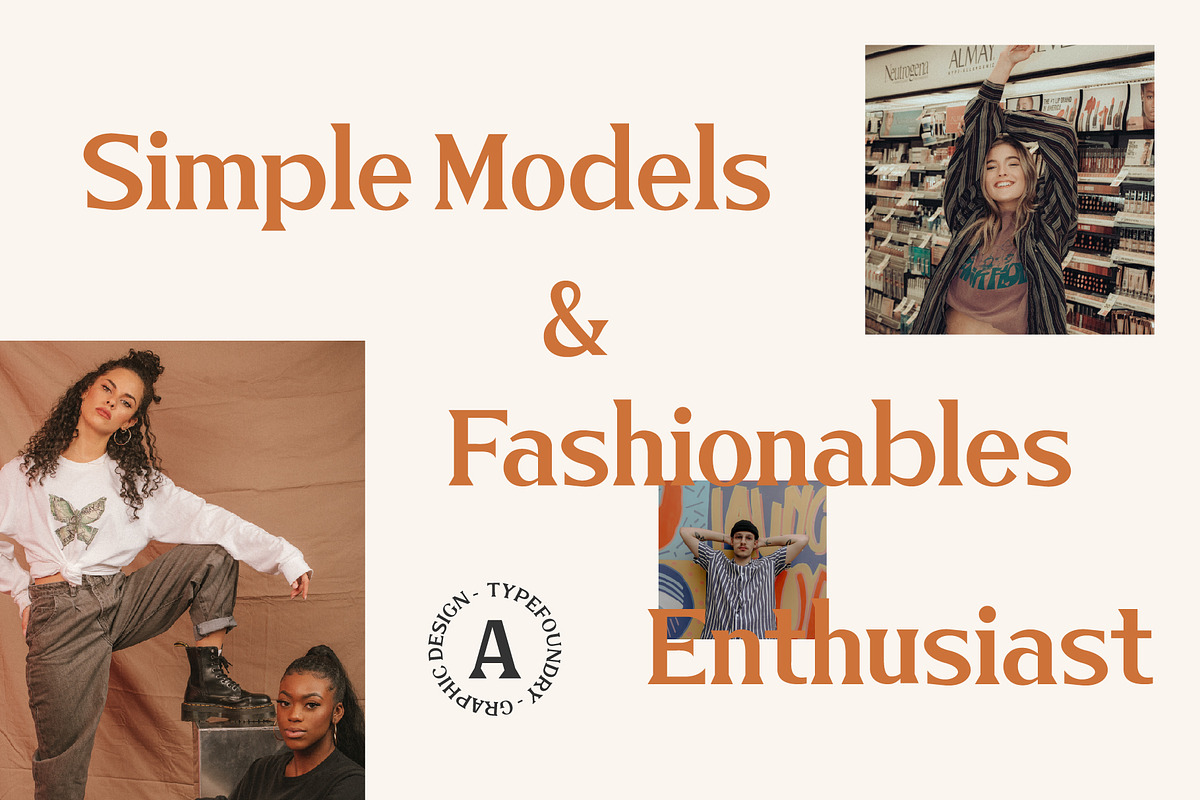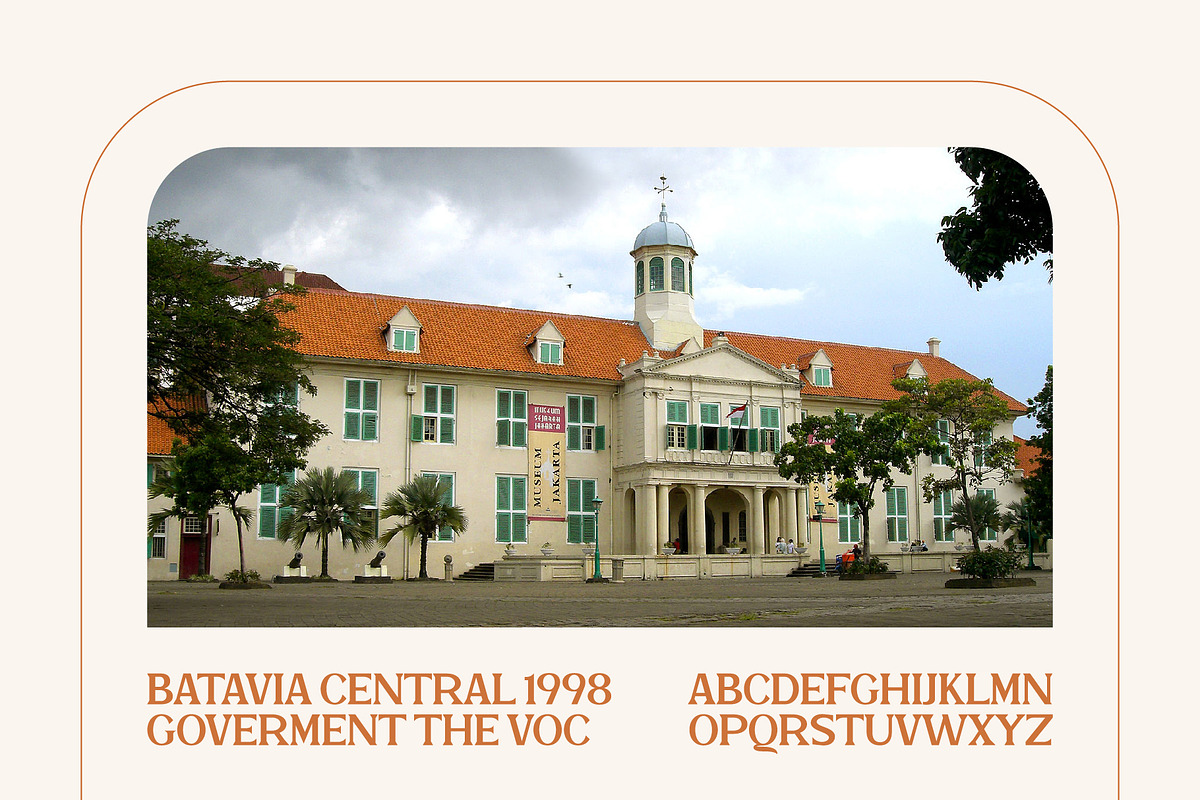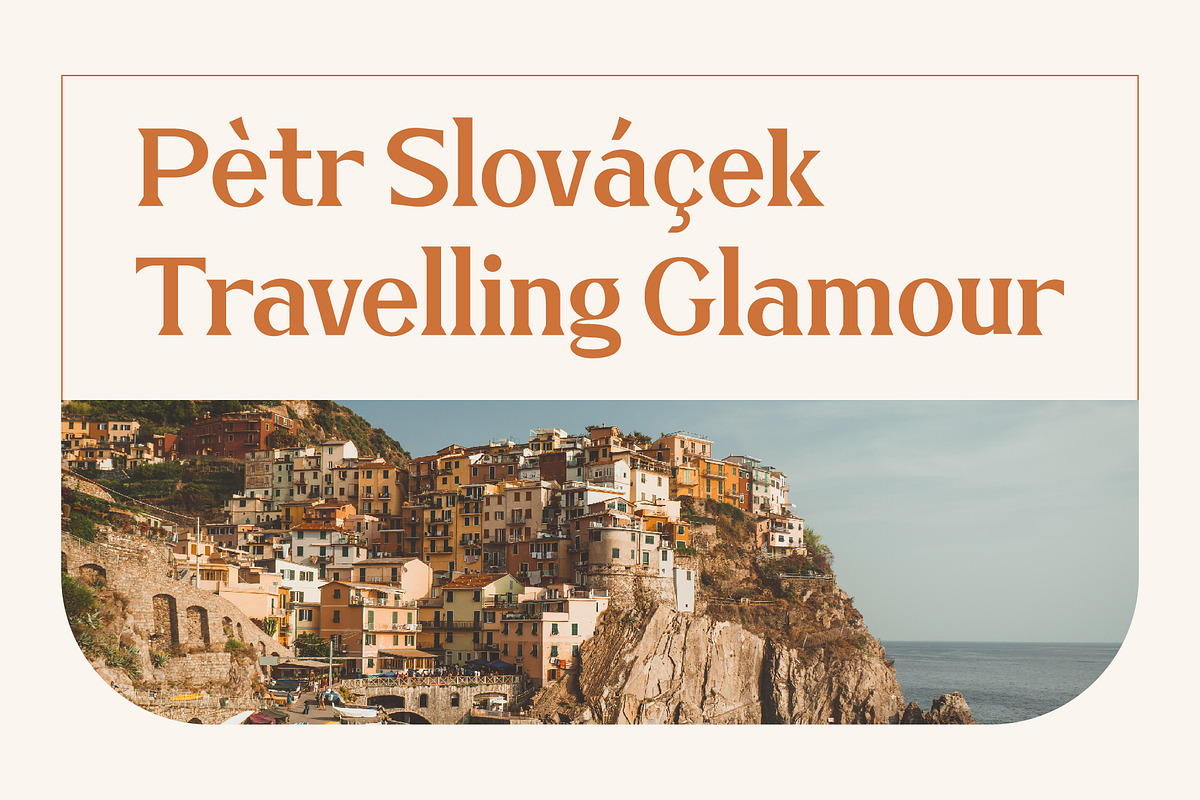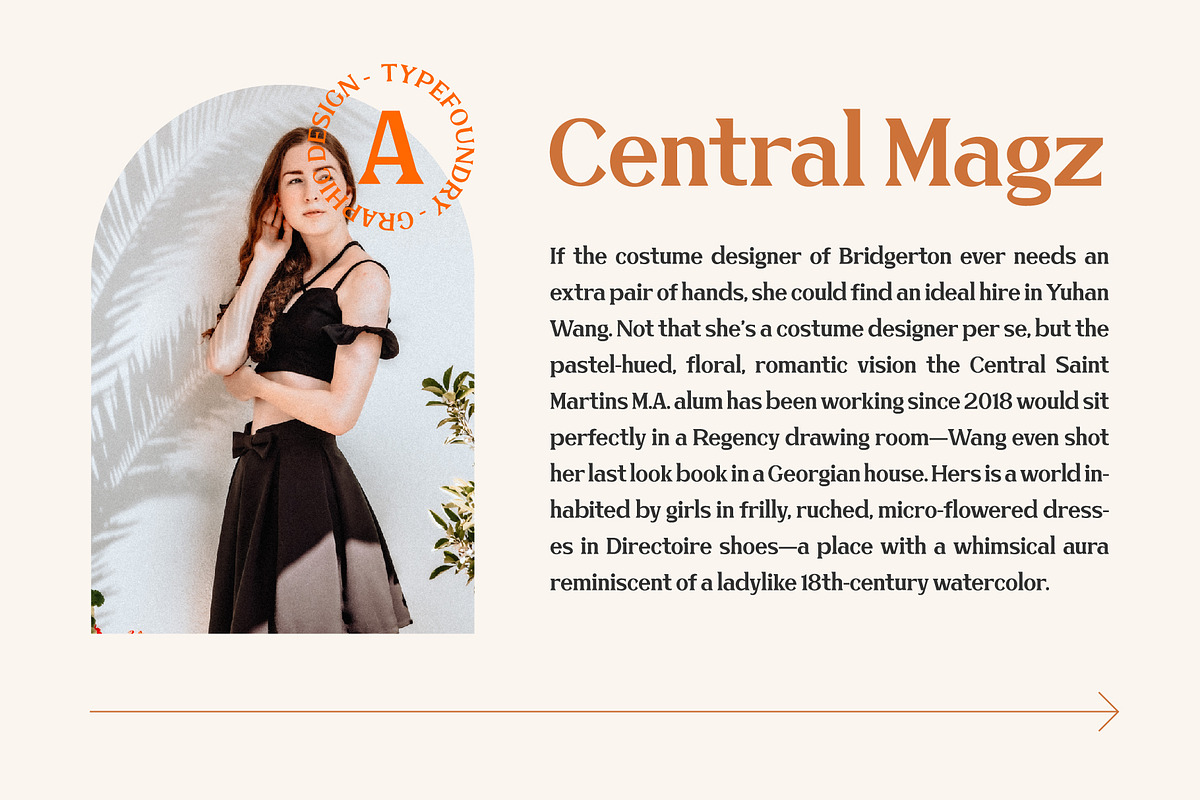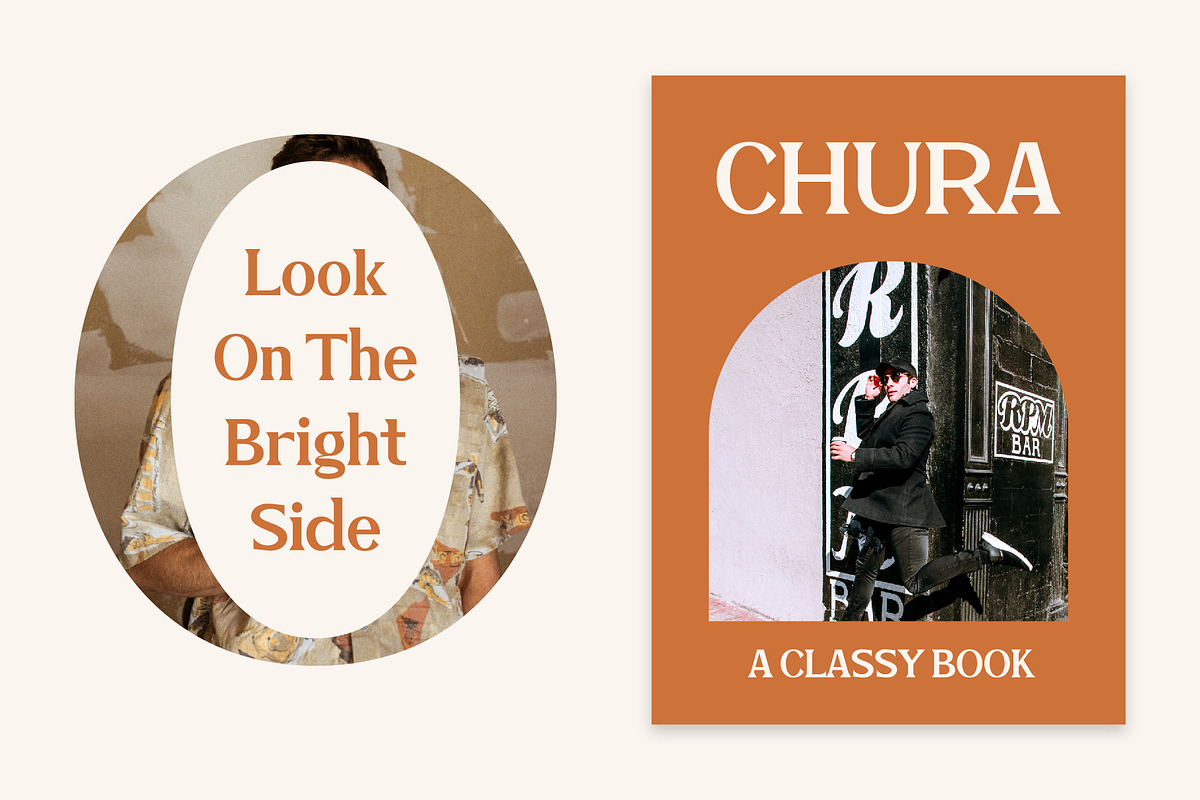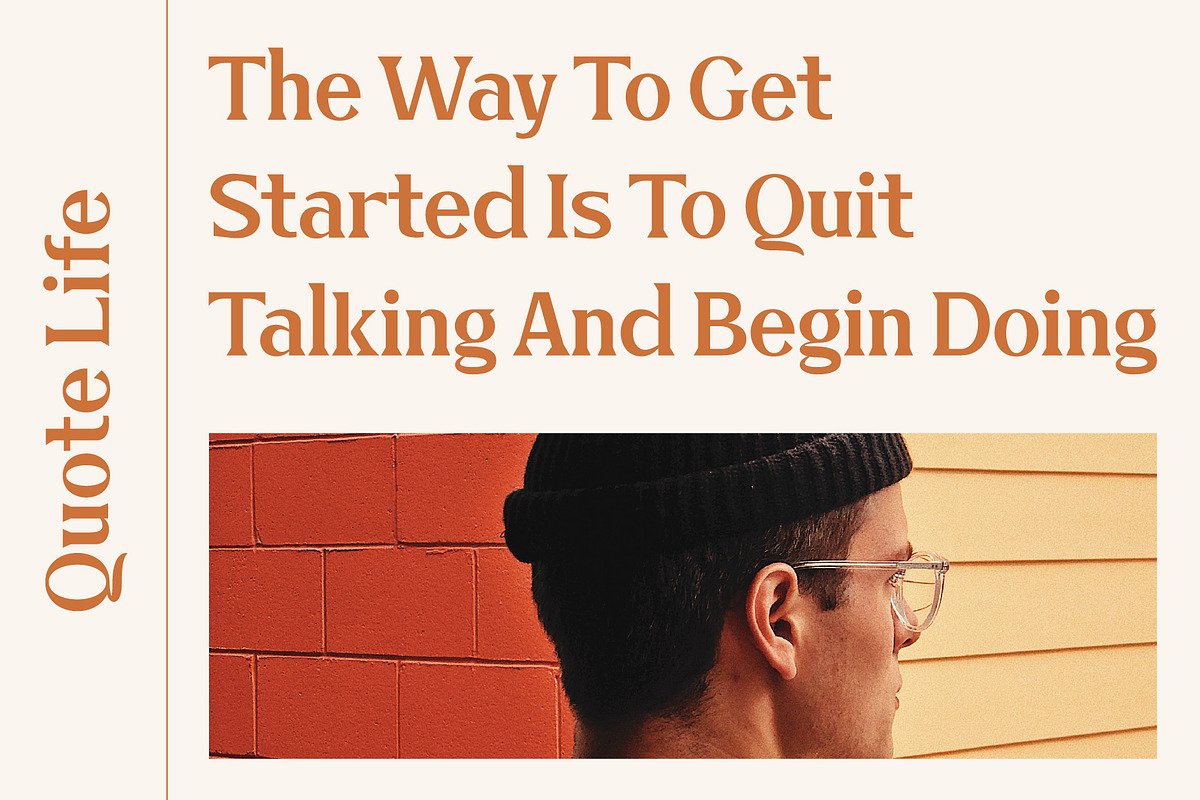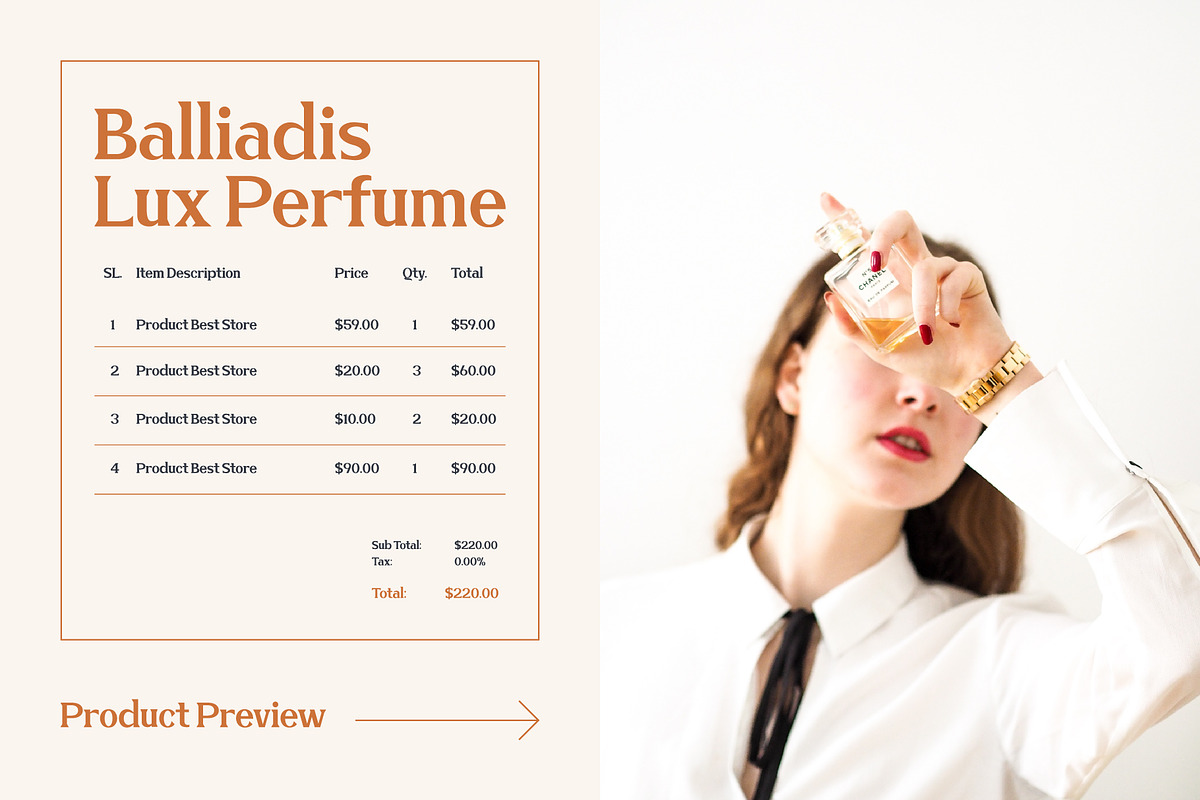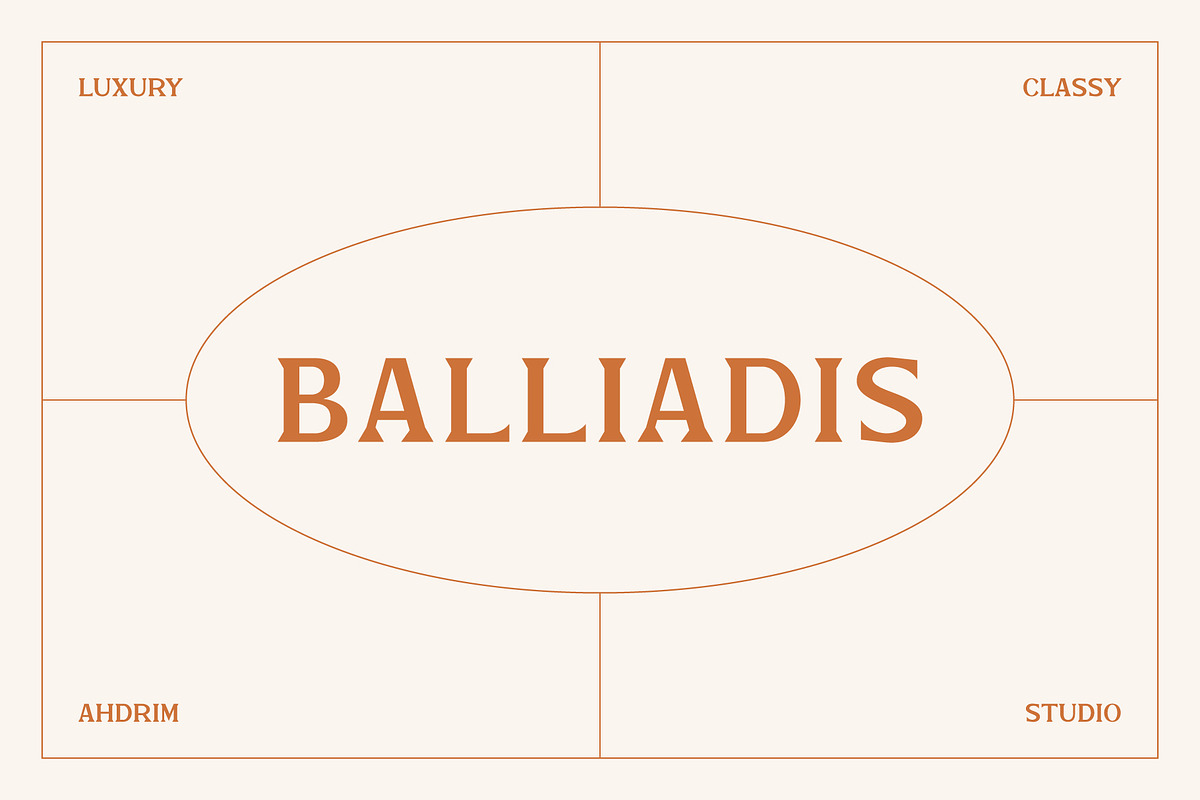
Balliadis Serif Font
Balliadis is a bold serif while elegance still maintained. It will boost your design stand out!
Balliadis is the perfect typeface for any kind of your project, such as advertisements, branding, graphic design, quotes, wedding design, logo for online or offline business, photography, and others. Make your business more elegant beautiful!
- Multilingual glyphs.